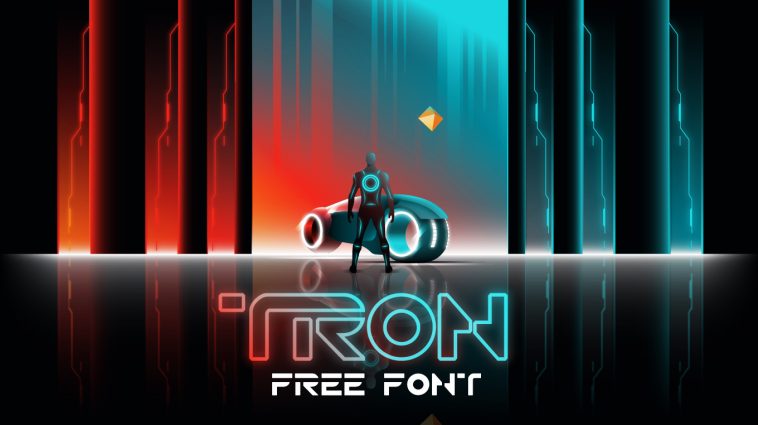
If you’re on a lookout for a Tron font freebie, you’re in for a treat! I have a very cool free font based on the typeface used in a Tron Movie Franchise. It’s called TR2N and its author is Jeff Bellini. As with all the movie fonts that you find here on Polar Vectors, this one comes with the free wallpaper that I designed as well. In case that you need a font that will give you an opportunity to use it commercially, I have a few suggestions listed for you below.
Free Tron Font – TR2N
Similar Tron Movie Fonts
Spectron Font is a nice substitute for the font used in Tron movies. It has that same retro neon look, the letters lack the “techno” feel of the Tron title font but if you need something similar yet unique, this is a great option.
Roxcrou Font is a somewhat different take on the Tron typeface. I think it also works well, it has that “gamer” feel and the outlines suggest neon lights – combined with the modern take on the letters it certainly looks like a good option for Tron font substitute.
Enter Cromix typeface is my last choice, I like that it comes with both filled and outlined letters. This one has that “techno” look displayed the most. Its more angular then the Tron title font but I think it has enough similarities to function like a replica if you need something in that style.